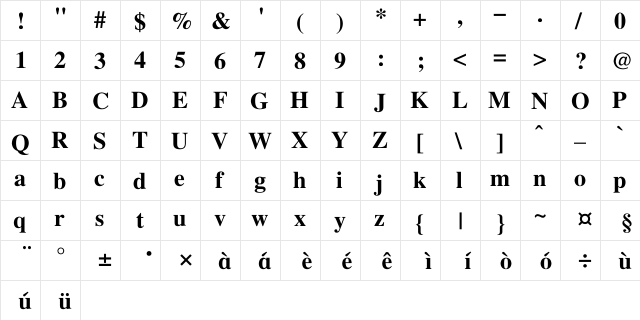
FZXiaoBiaoSong-B05S Regular
Design Context for FZXiaoBiaoSong-B05S Typeface
FZXiaoBiaoSong-B05S offers clean, dependable letterforms without strong stylistic allegiance, making it a practical choice for designers who need flexibility.
Pro Tip: Use FZXiaoBiaoSong-B05S in both headline and body roles to test its range before committing to a single application.